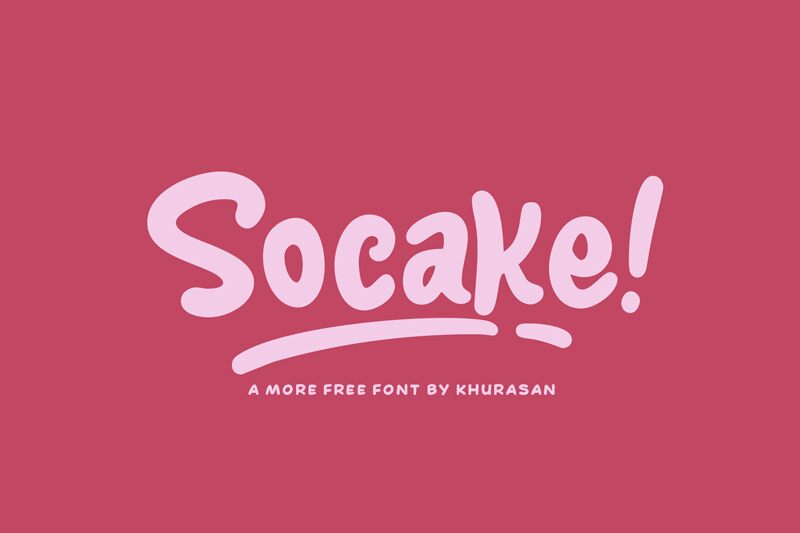
Socake
Socake by Khurasan is a bold display font that adds a playful touch to any project. Its cartoon style makes it perfect for children's books, comics, or anything that needs a fun look. Use this versatile typeface for branding, advertising, packaging, or social media graphics. With its thick and juicy letters, Socake will grab attention and make your message stand out. Whether you're designing a logo for a bakery or creating posters for a music festival, this font has got you covered. Choose Socake and let your creativity run wild!